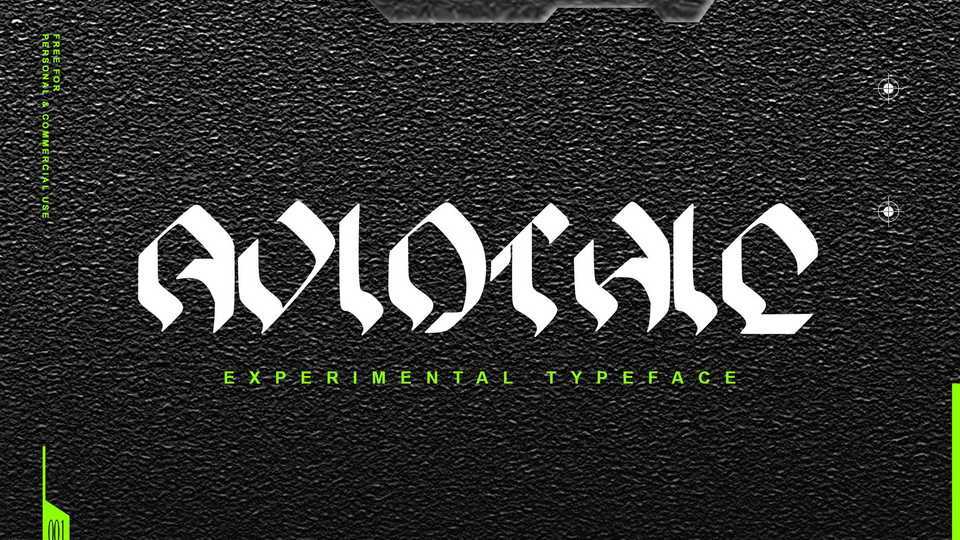
Download Aviothic font, an experimental display typeface with a unique personality. With its modern calligraphic look Aviothic font is ideal for posters, album covers, branding and typography artworks.
Designer: Vntrinsick_std